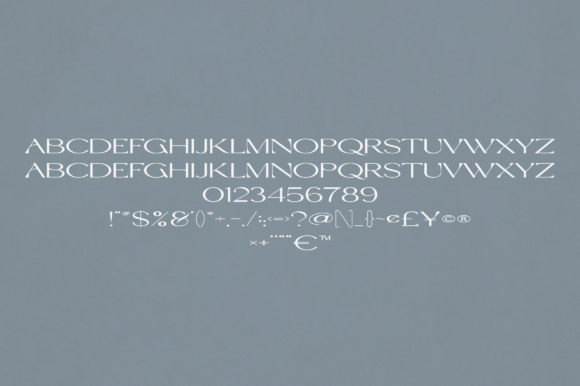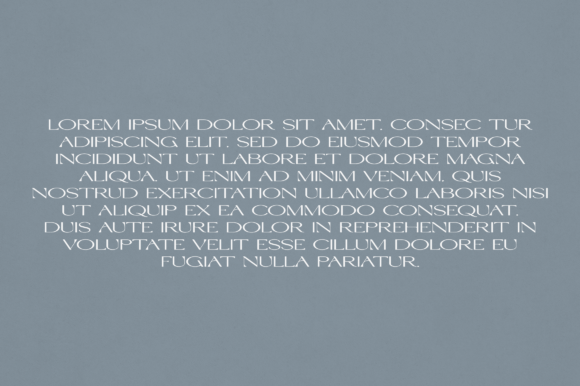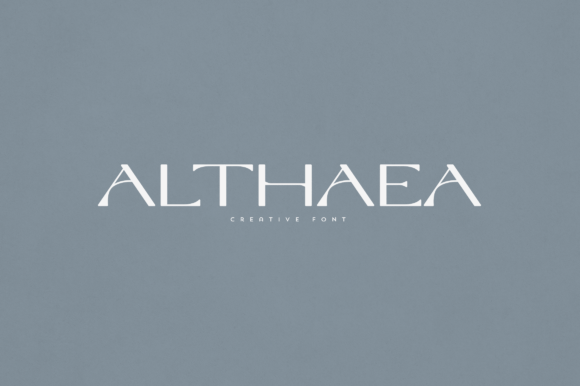
Introducing Althaea Font: Elevate Your Typography with Elegance and Versatility
In the world of design, typography plays a crucial role in conveying messages, expressing creativity, and establishing brand identity. Among the myriad of fonts available, Althaea stands out as a beacon of elegance and versatility. This exquisite font is designed to transform your typography into a truly unique and captivating visual experience. Whether you’re working on a logo, branding project, headline, or simply adding a stylish text overlay to a background image, Althaea is the perfect choice.
Unleash Your Creativity with Althaea
Althaea is more than just a font; it’s a tool that unlocks endless creative possibilities. Its elegant and versatile nature makes it suitable for a wide range of design applications. Imagine using Althaea to craft a stunning logo that captures the essence of your brand, or to design eye-catching product packaging that stands out on the shelves. The font’s unique characteristics will enchant every project, turning them into memorable visual experiences.
One of the key advantages of Althaea is its adaptability. It’s a font that can seamlessly integrate into various design projects, including:
• Branding Projects: Establish a strong brand identity with Althaea’s distinctive and elegant typography.
• Home-ware Designs: Add a touch of sophistication to your home-ware designs, making them truly unique and appealing.
• Product Packaging: Elevate your product packaging with stylish and eye-catching text that reflects your brand’s personality.
• Magazine Headers: Create captivating headers that draw readers in and set the tone for your content.
• Text Overlays: Use Althaea as a stylish text overlay on any background image, adding depth and elegance to your visuals.
Why Choose Althaea?
With so many fonts available, what sets Althaea apart? Here are a few reasons why designers and crafters are gravitating towards this elegant font:
• Uniqueness: Althaea offers a fresh and unique aesthetic that’s sure to differentiate your designs from the crowd.
• Versatility: Its adaptability makes it suitable for a wide range of projects, from digital designs to print materials.
• Elegance: Althaea brings a level of sophistication and elegance to your typography, enhancing the overall visual appeal of your designs.
• Easy to Use: Designed with the user in mind, Althaea is easy to integrate into your design workflow, allowing you to focus on creativity rather than technicalities.
Tips for Using Althaea Effectively
To get the most out of Althaea, consider the following tips:
• Experiment with Sizes: Play with different font sizes to create visual hierarchy and emphasis in your designs.
• Color Matters: Choose colors that complement the elegance of Althaea, ensuring your text stands out while maintaining readability.
• Mix and Match: Don’t be afraid to combine Althaea with other fonts to create a unique and engaging visual experience.
Althaea is not just a font; it’s a design statement. Its elegance, versatility, and unique charm make it an indispensable tool for designers and crafters looking to elevate their typography. Whether you’re working on a branding project, product packaging, or simply adding a touch of style to your visuals, Althaea is the perfect choice. Embrace the beauty of Althaea and transform your designs into captivating visual experiences that leave a lasting impression.